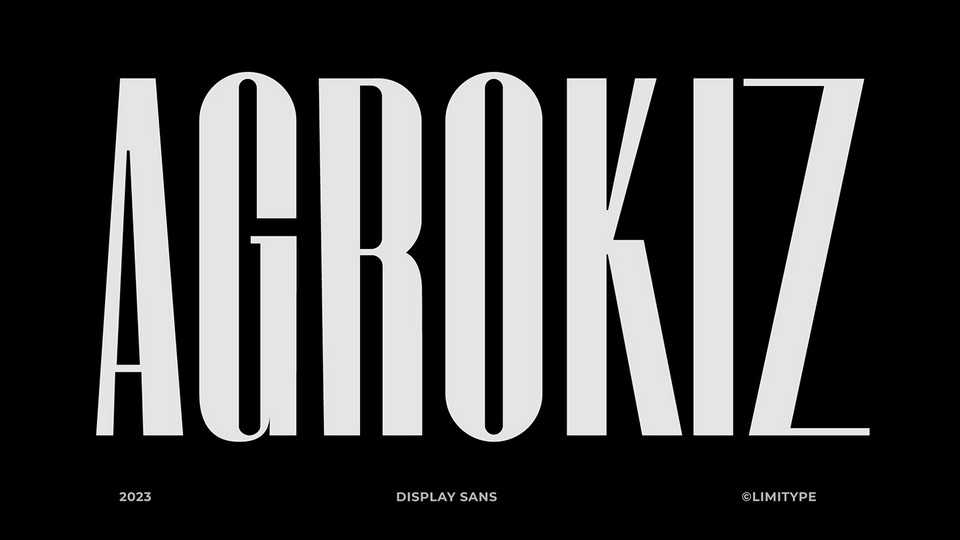
Download Agrokiz font, a modern condensed typeface designed for display and design needs that require large text such as magazine headlines, banners, etc.